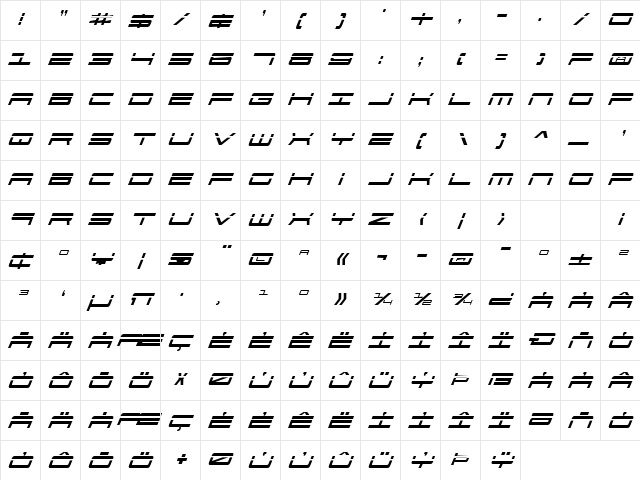
911 Porscha Laser Italic Laser Italic
Style: Laser Italic
Complete 911 Porscha Laser Italic glyph index. Displaying only characters natively supported by 911 Porscha Laser Italic font.
Design Context for 911 Porscha Laser Italic
911 Porscha Laser Italic is a composed and adaptable typeface that performs quietly and consistently across a wide range of design contexts. The slanted form adds forward momentum and visual energy.
Pro Tip: Use 911 Porscha Laser Italic for emphasis, pull quotes, and subheadings where its slanted energy can add rhythm to the layout.